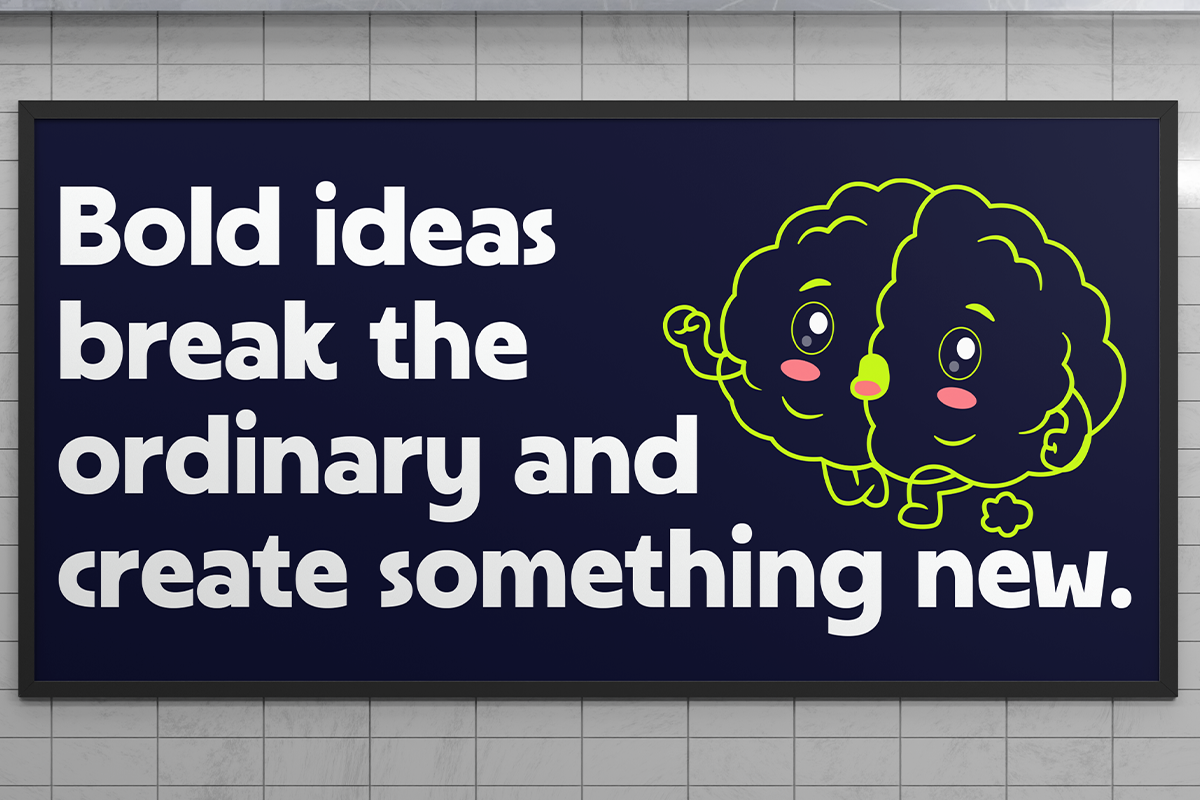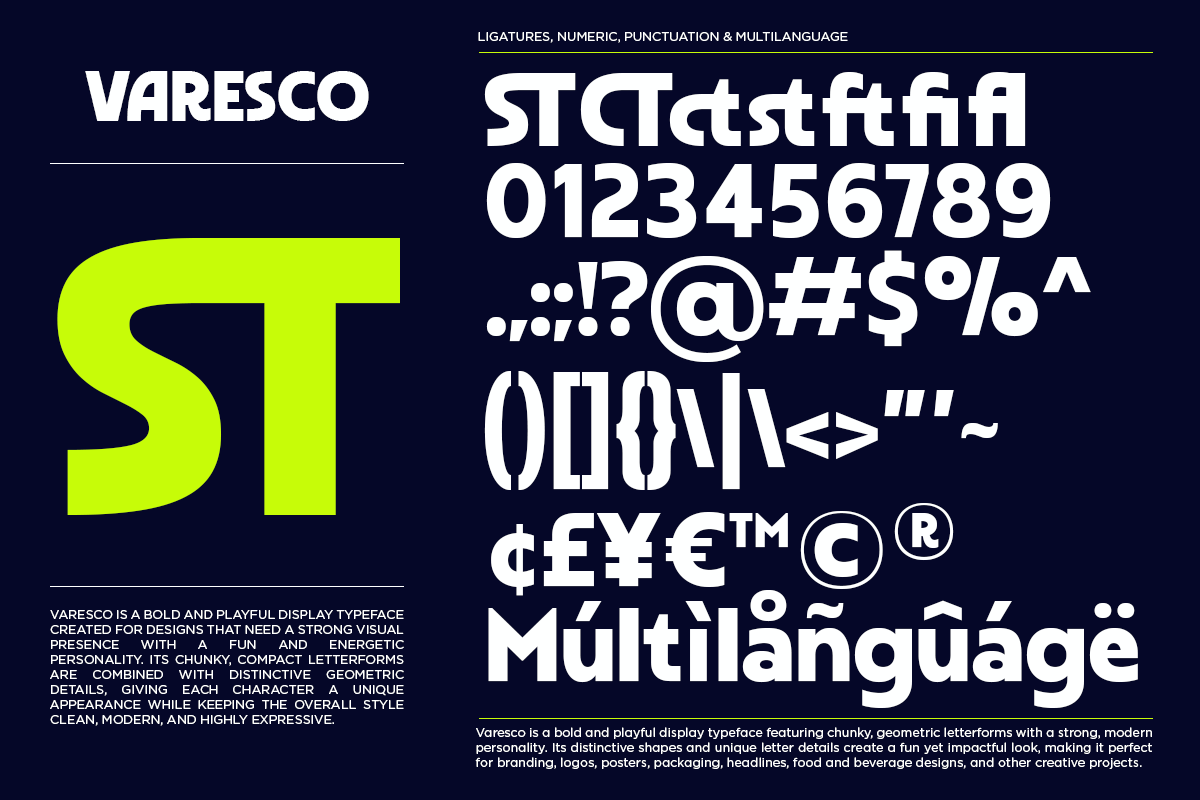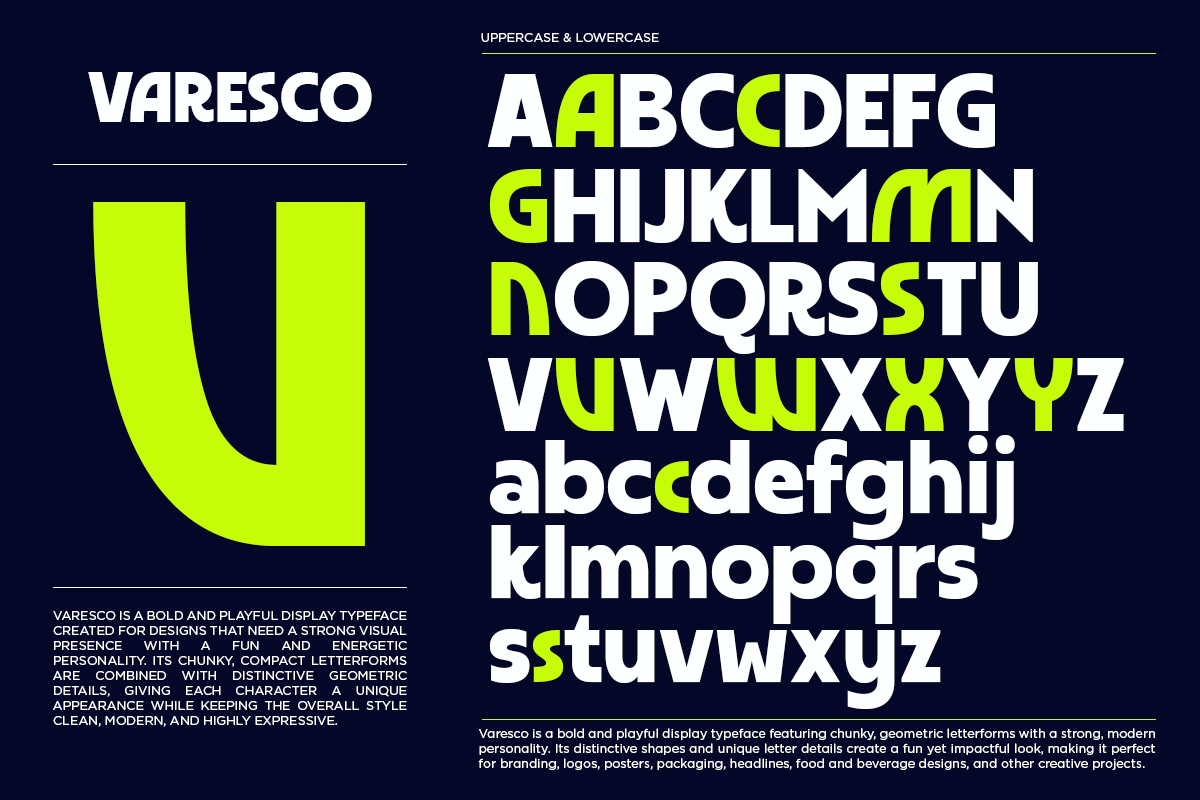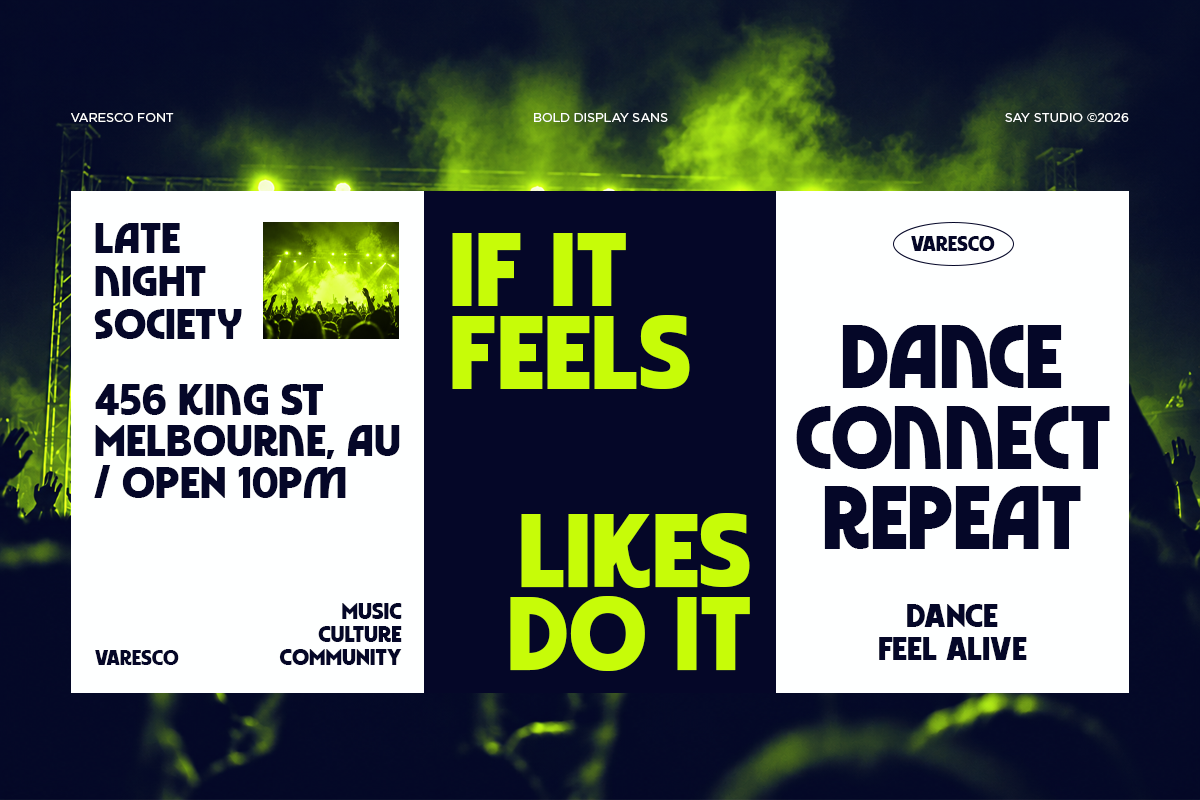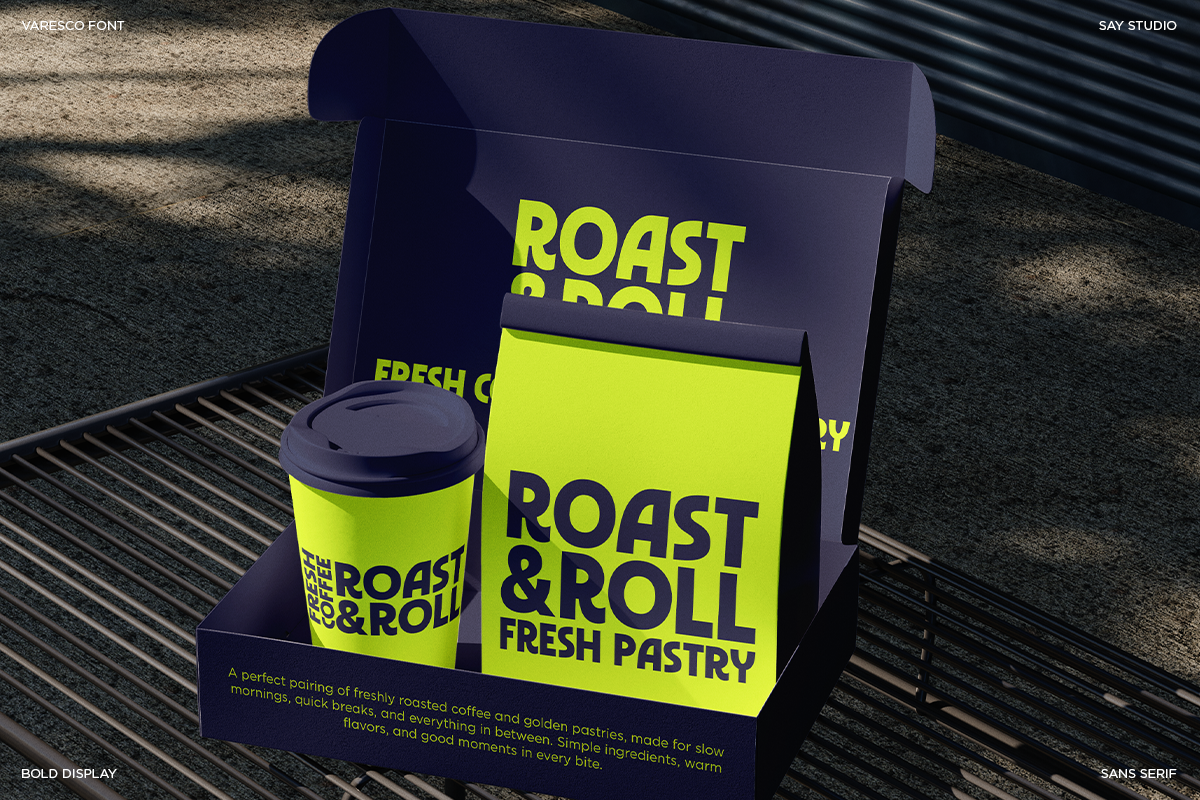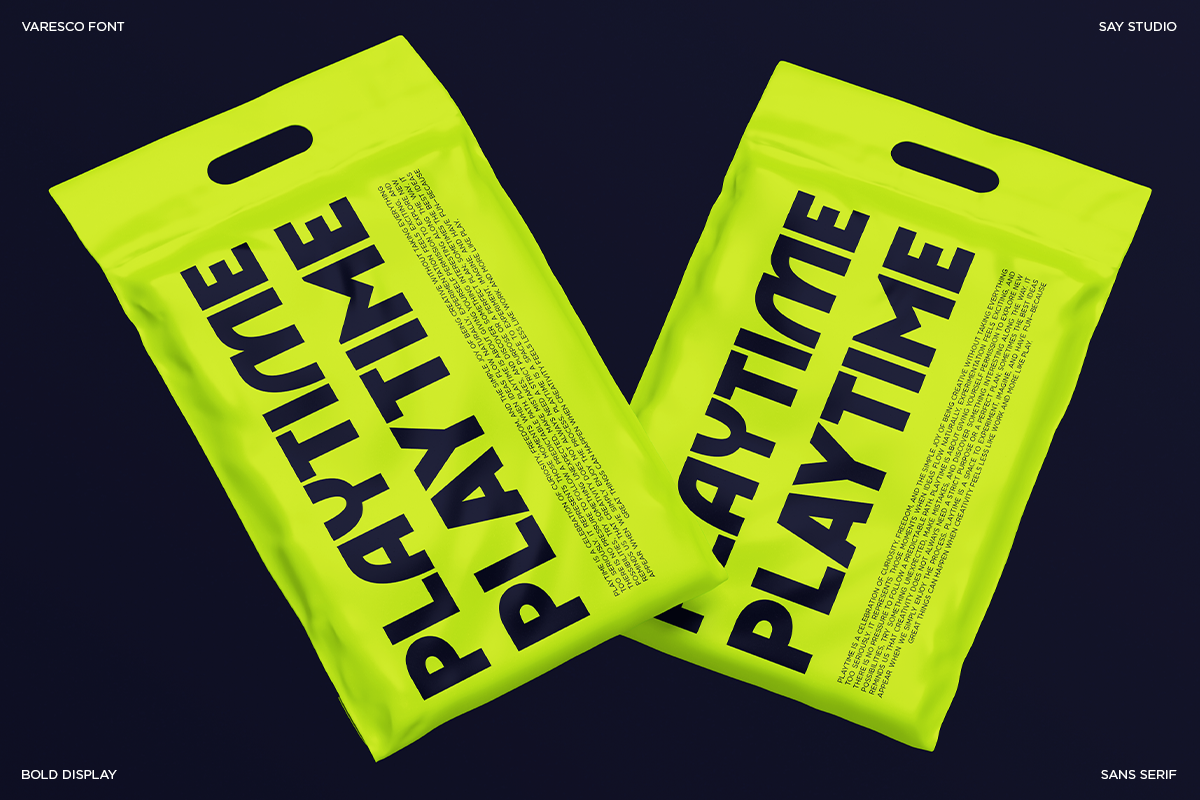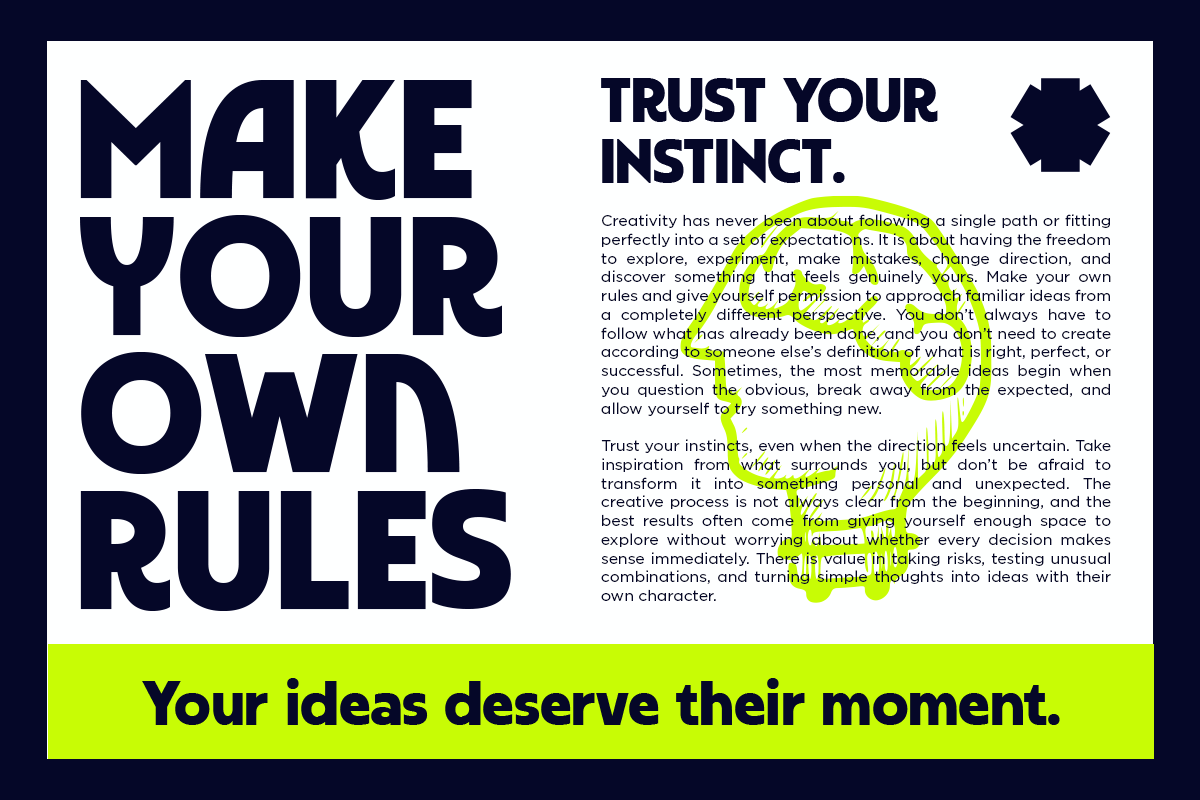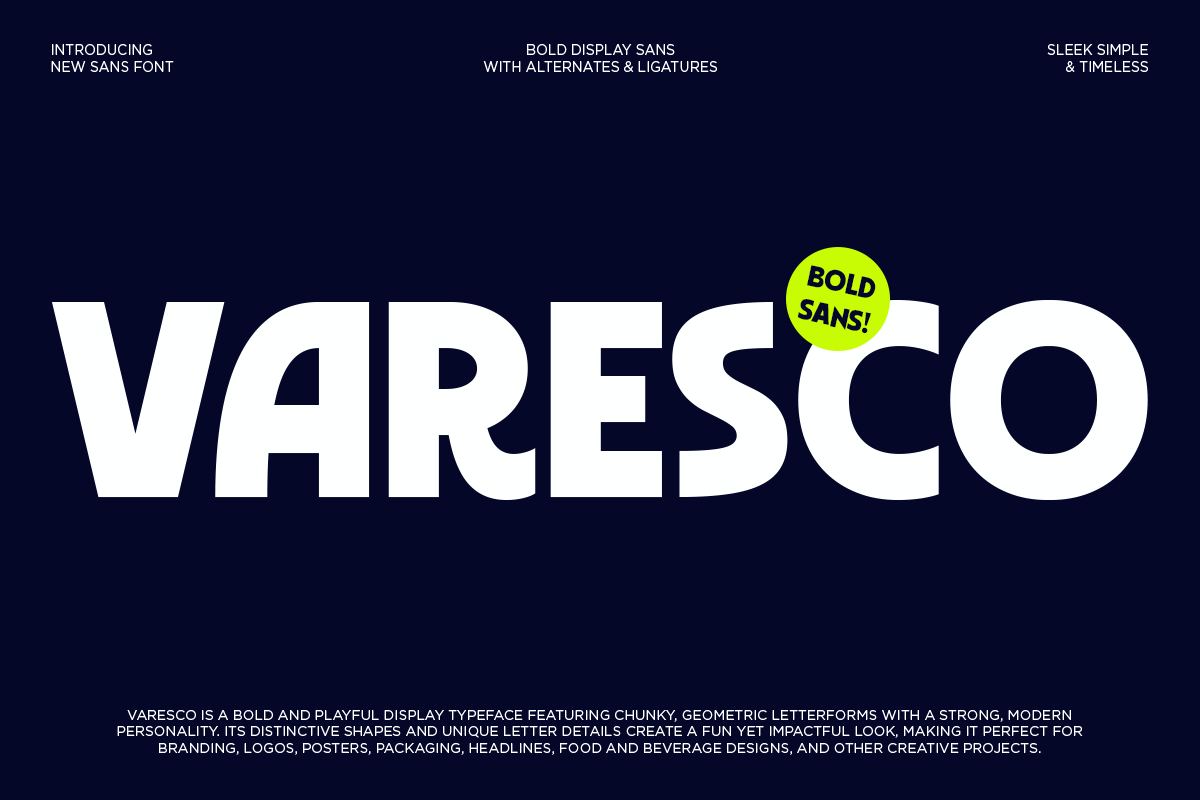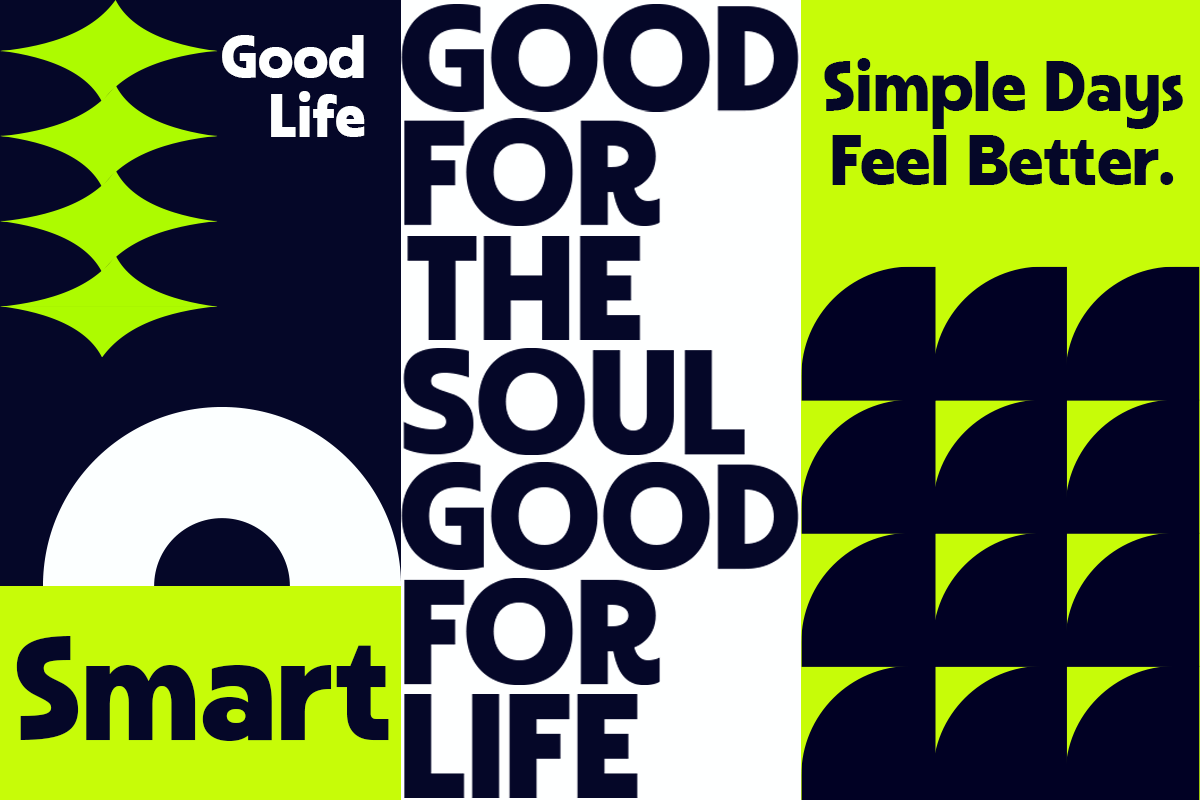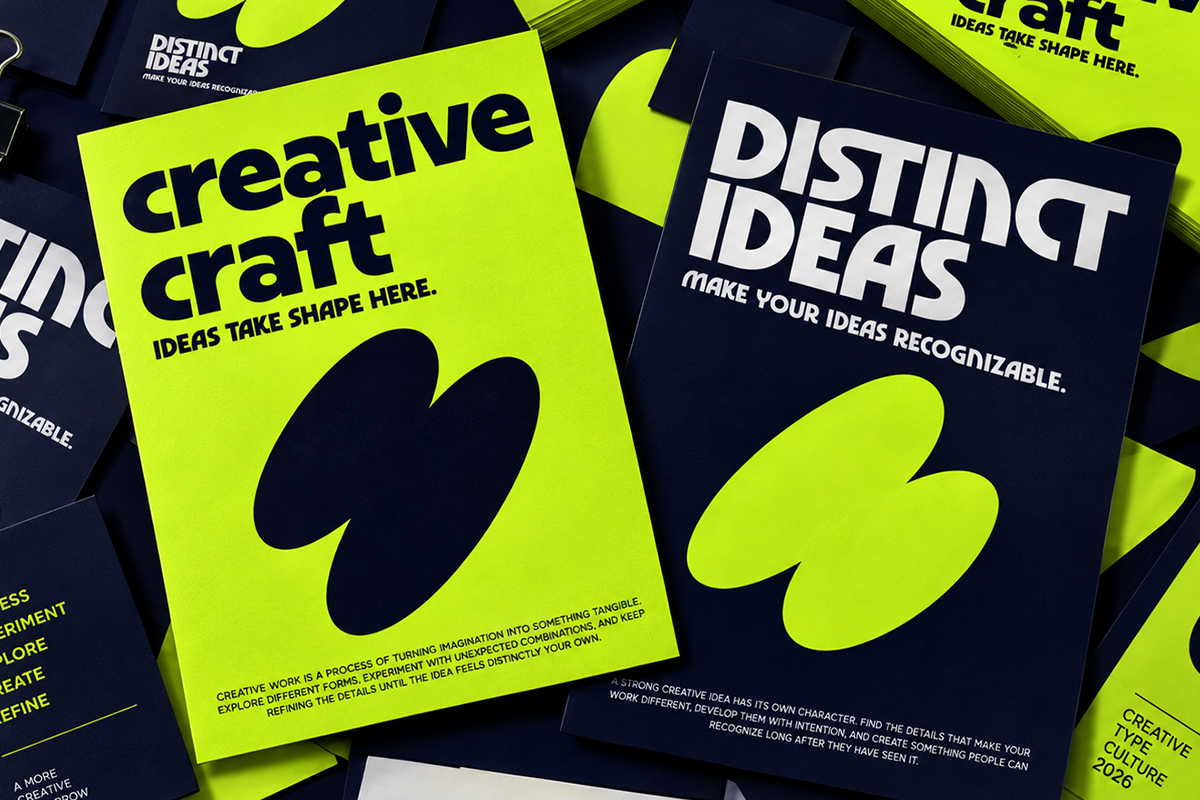
Varesco - Heavy Bold Sans Serif Font
Varesco is a heavy bold geometric display font designed to make a strong visual statement. With its powerful letterforms, clean structure, and contemporary character, it brings an energetic and confident personality to modern creative projects.
Perfect for branding, posters, editorial layouts, advertising, packaging, social media graphics, headlines, logos, campaigns, and creative studio projects. Its bold presence works especially well when you need typography that instantly captures attention while maintaining a clean and modern appearance.
Varesco includes a versatile character set with uppercase and lowercase letters, numbers, punctuation, and multilingual characters, making it suitable for a wide range of professional and experimental design applications.
Regular and Italic
Special Alternates
Stylistic Ligatures
Number, Symbols, and Punctuation